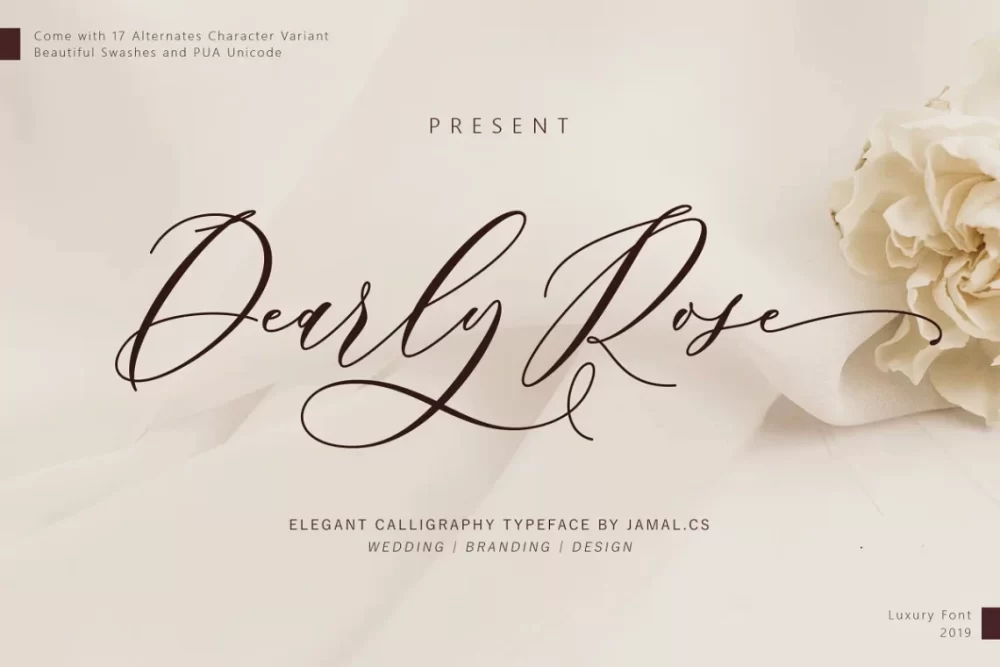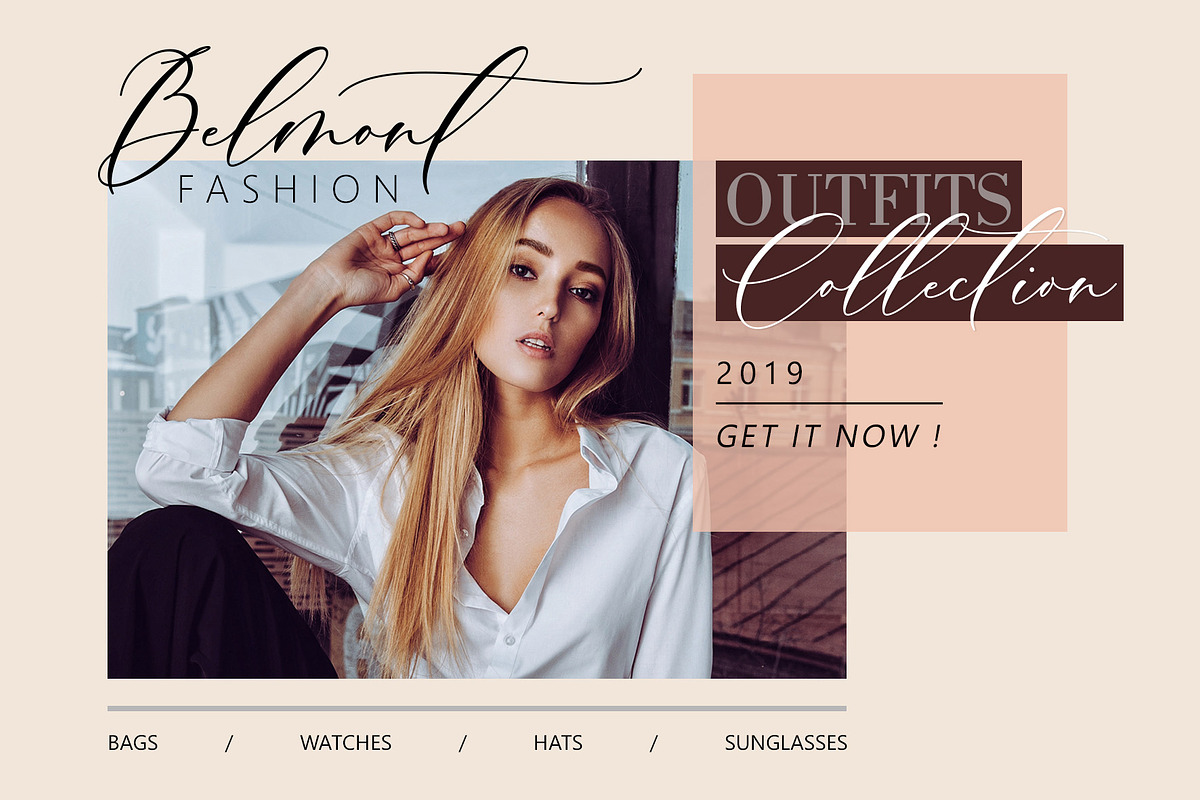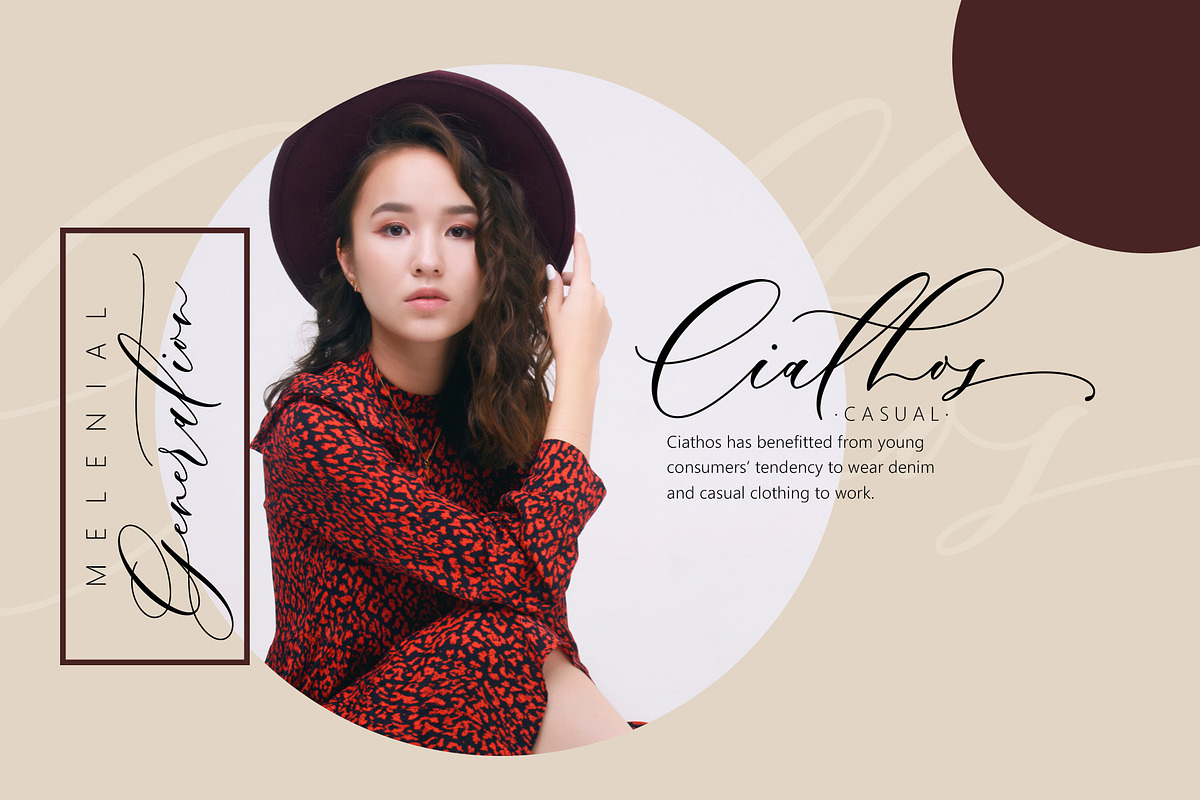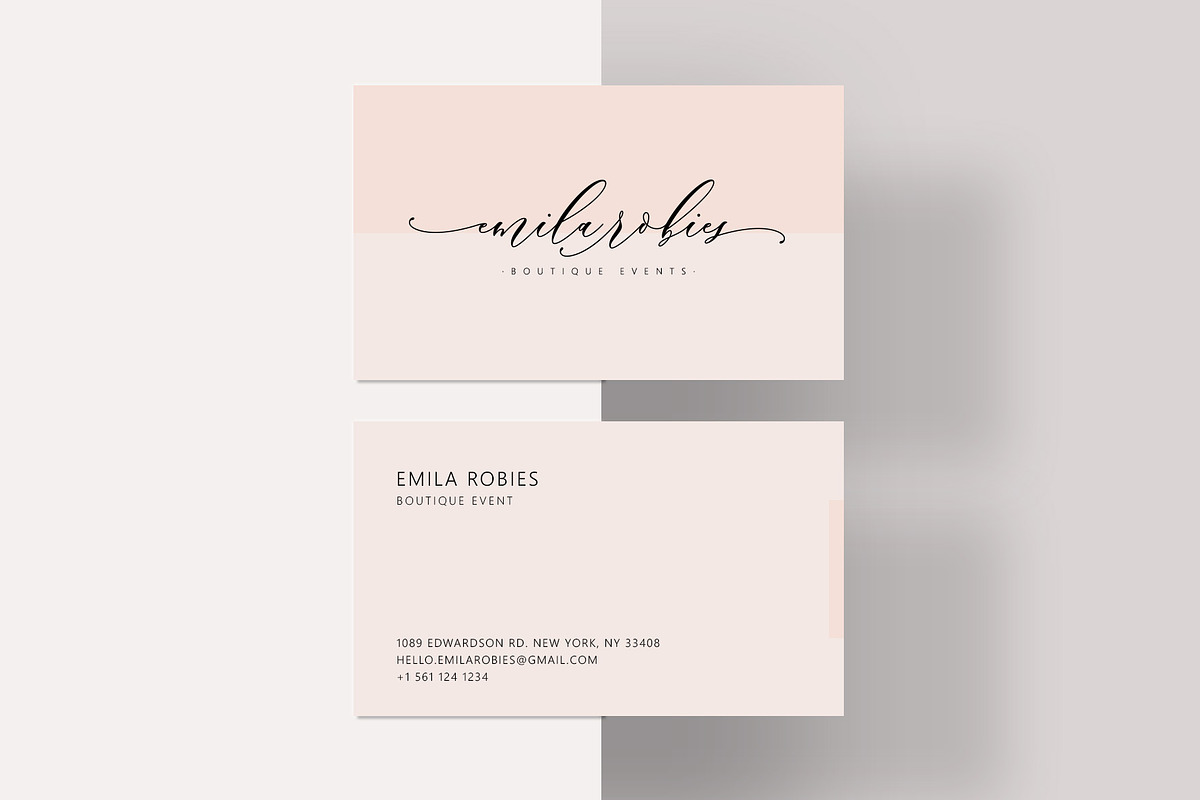
Dearly Rose is modern calligraphy script font, every single letters has been carefully crafted to make your text looks beautiful. With modern script style this font will perfect for many different project, example: invitations, greeting cards, posters, name card, quotes, blog header, branding, logo, fashion, apparel, letter, stationery and more!
Dearly Rose Script come with 540+ glyphs. The alternative characters were divided into several Open Type features such as Swash, Stylistic Sets, Stylistic Alternates, Contextual Alternates.